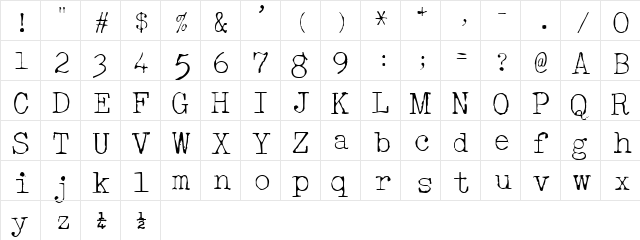
Acoustic Light Regular Font Preview
Acoustic Light Regular
Acoustic Light Regular Font Details
Design Context for Acoustic Light Typeface
Acoustic Light is a composed and adaptable typeface that performs quietly and consistently across a wide range of design contexts. Its slender proportions lend an understated elegance to any composition.